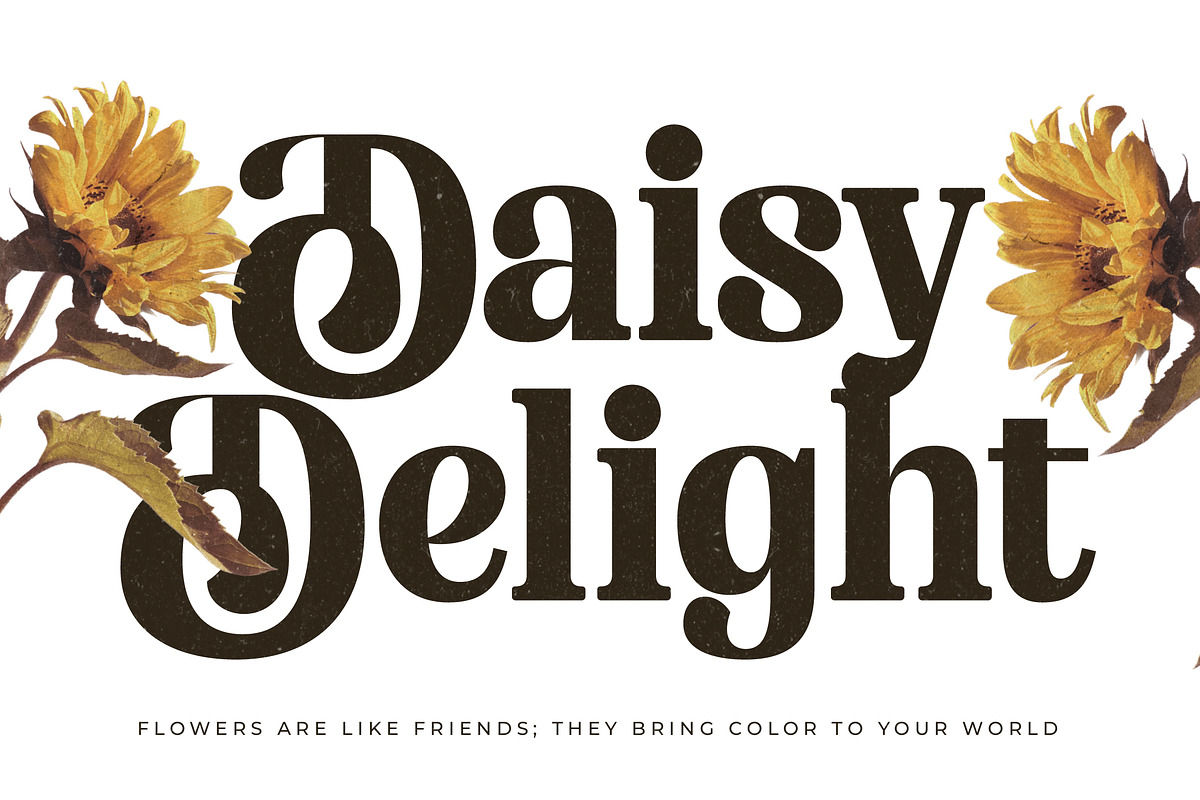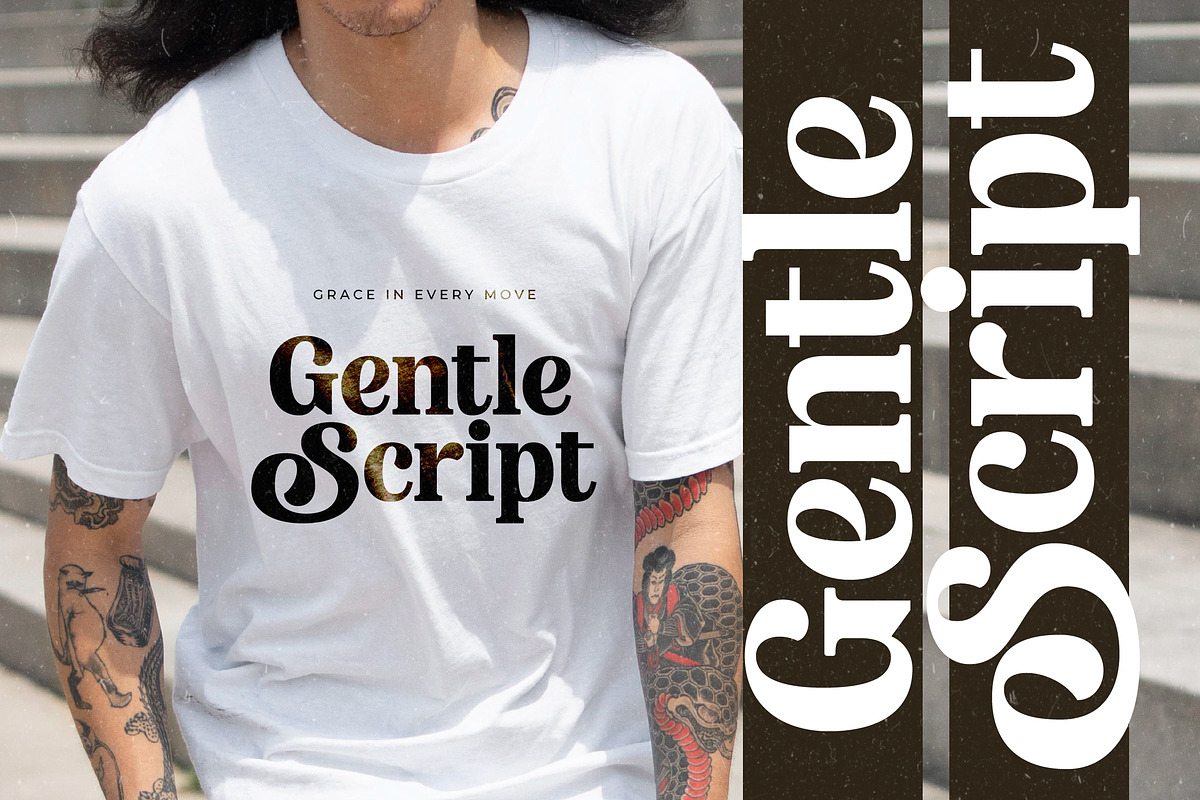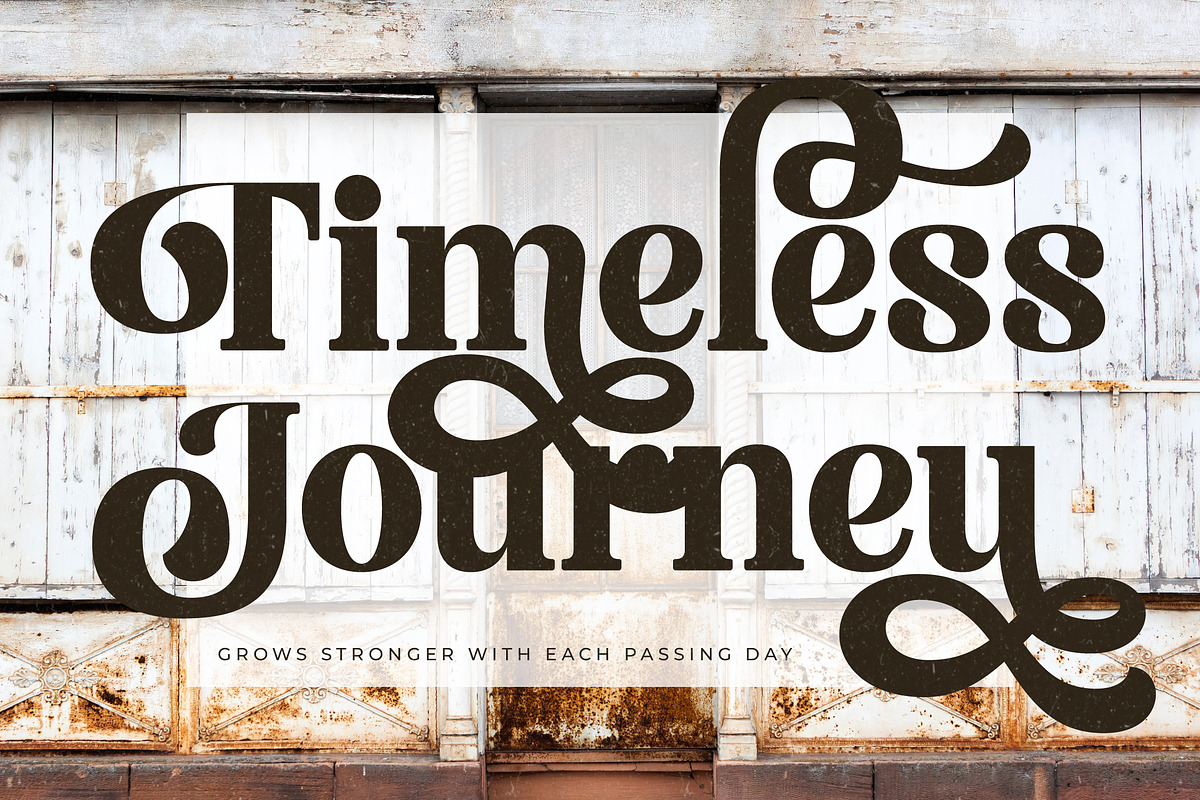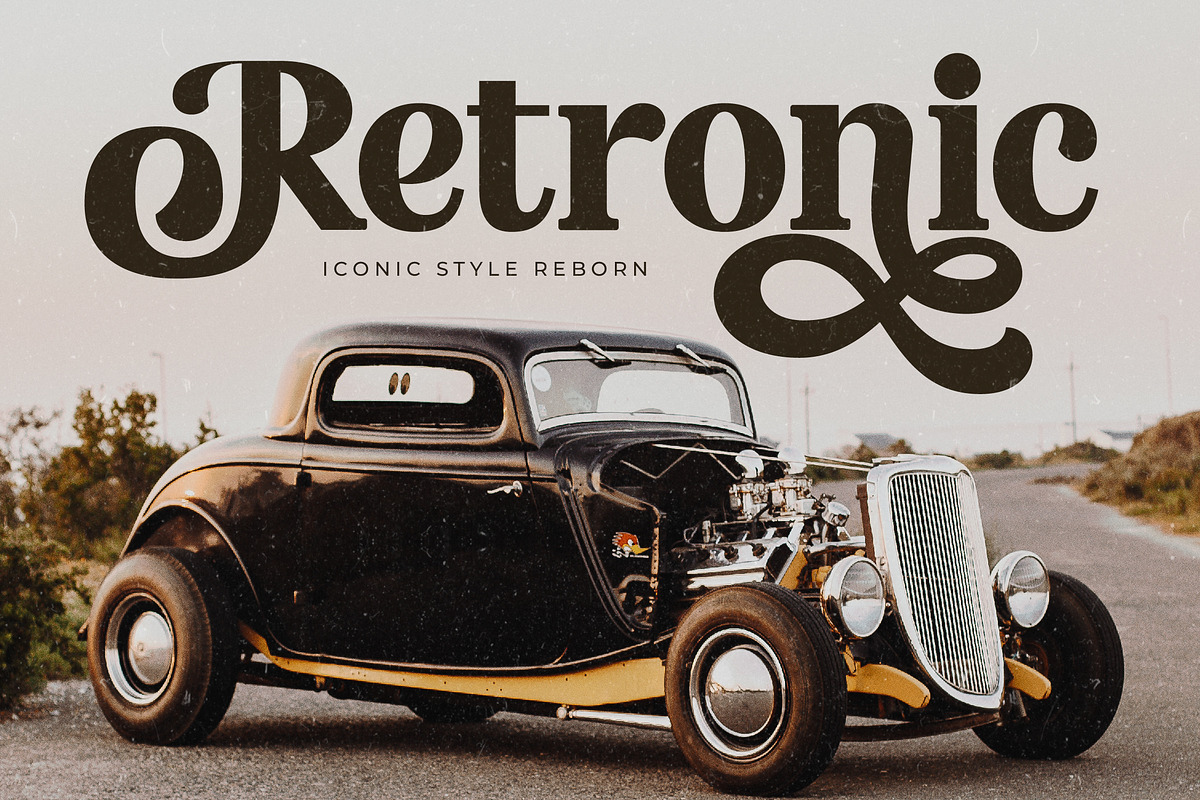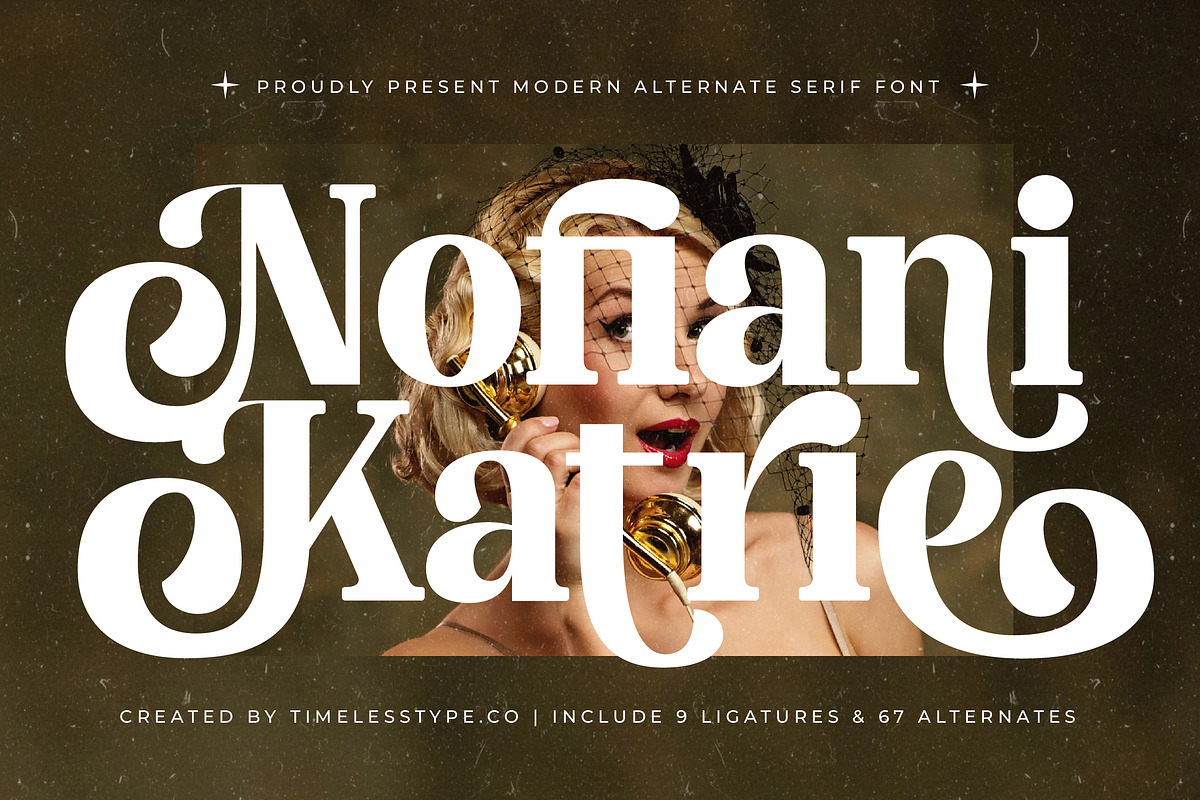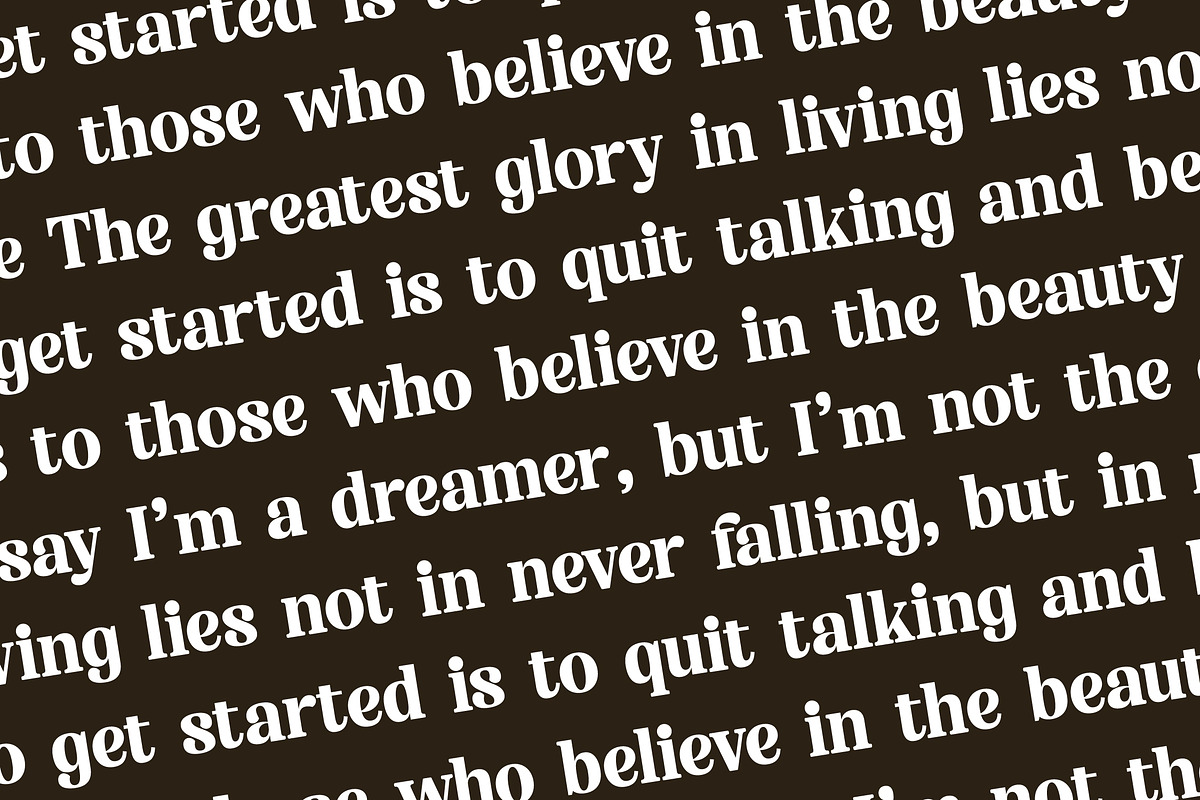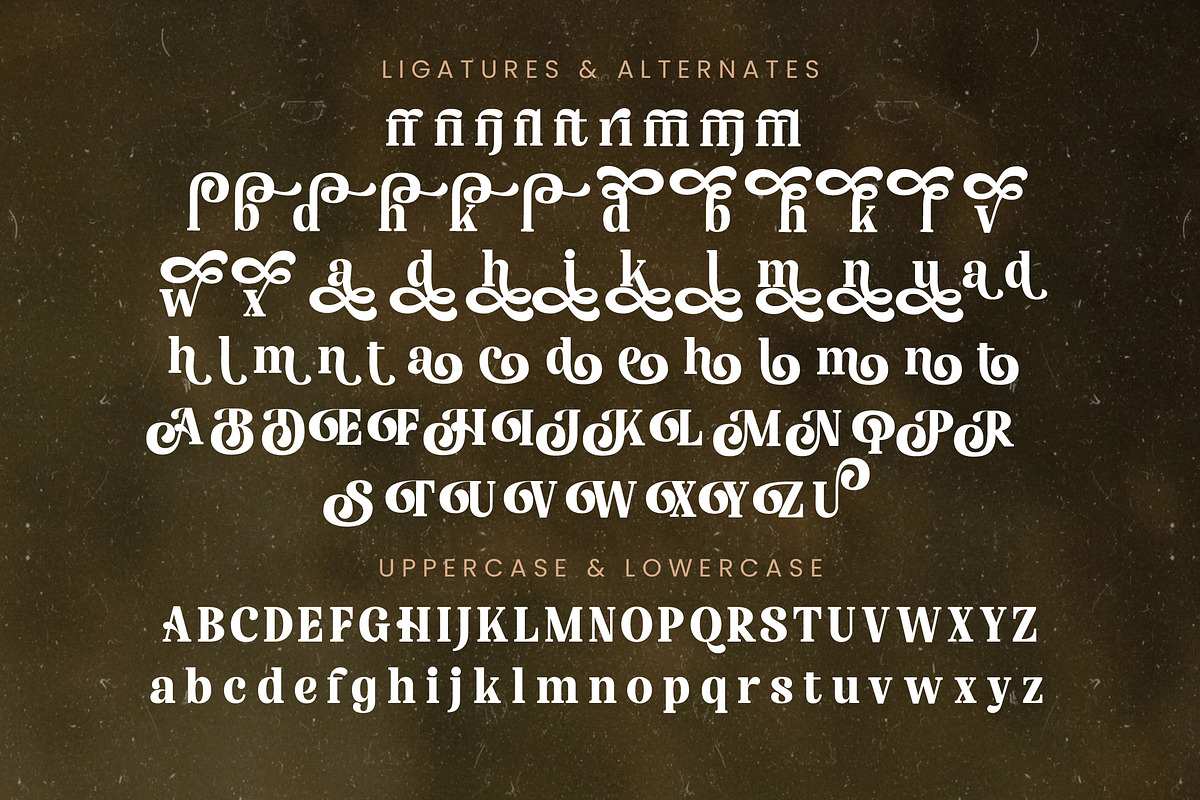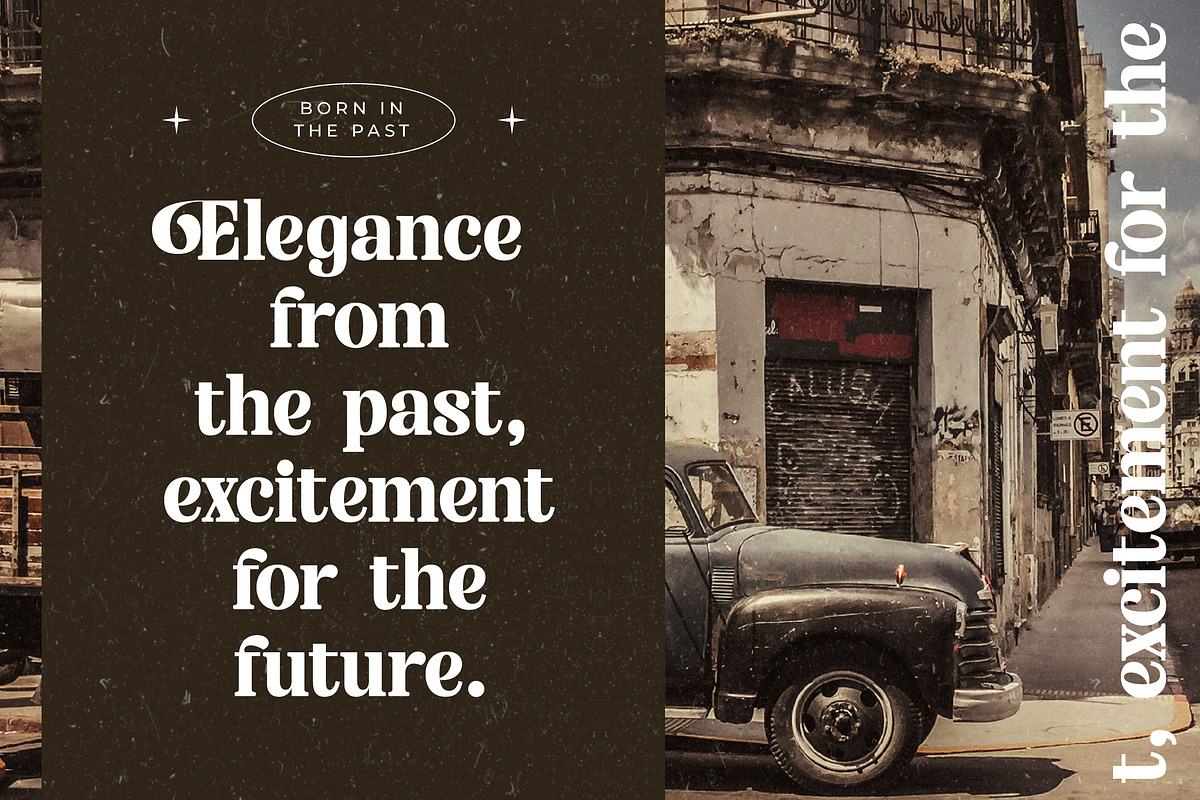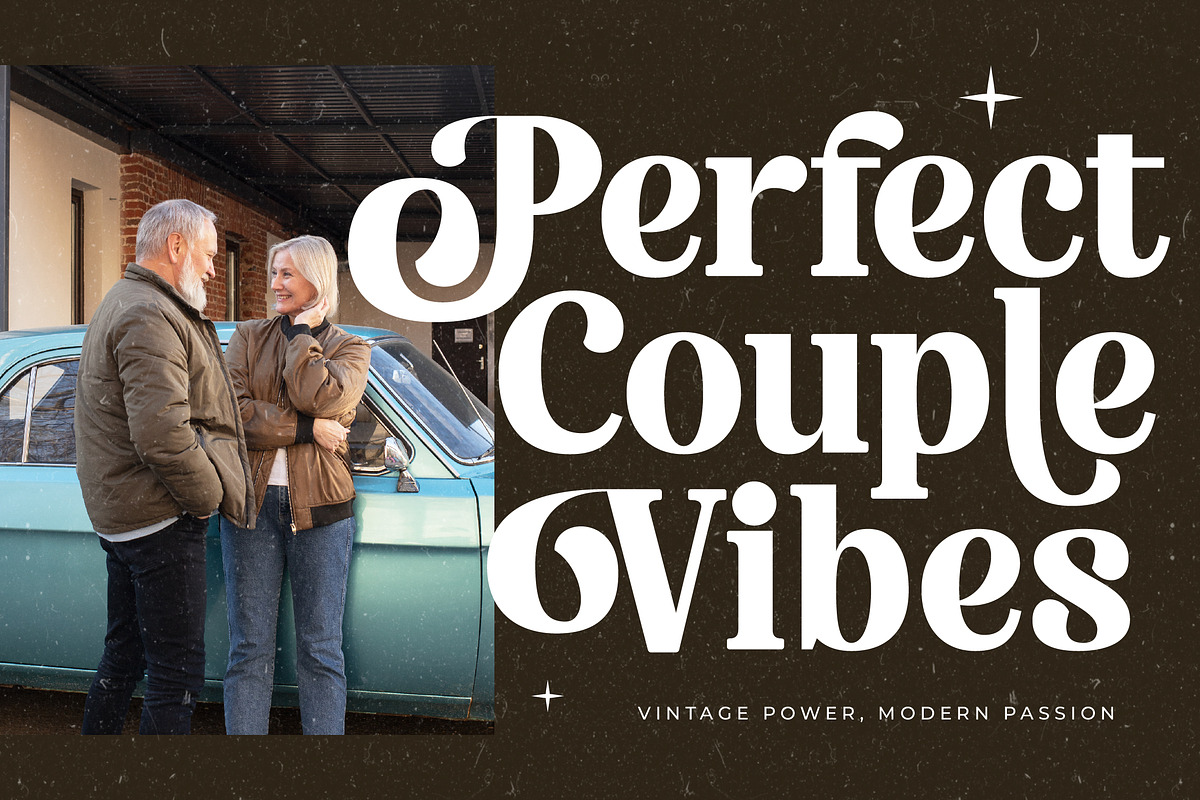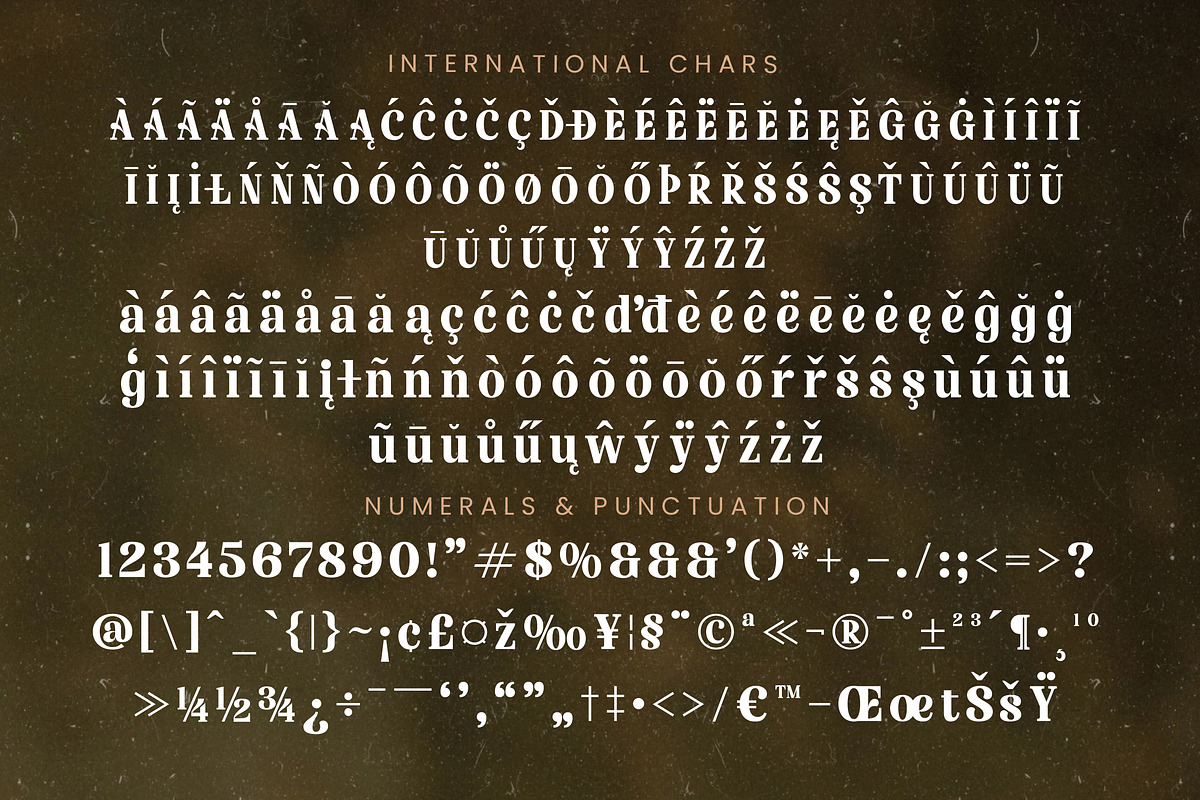
Nofiani Katrie Modern Serif Font
Step into a world of timeless elegance where every curve tells a story of sophistication. Nofiani Katrie is more than just a typeface; it is a visual invitation to a realm of grace and high-fashion allure.
Drawing inspiration from the golden age of cinema and the classic aesthetics of vintage luxury, this font captures the essence of a bygone era reimagined for today's creative landscape. It evokes the feeling of a sun-drenched European villa and the refined whispers of high-society soirées.
The font radiates a modern serif display presence that commands attention through its luxury typography and high-contrast serif strokes. This editorial font is designed to provide a lasting branding impact, blending sharp precision with fluid, organic motion.
Perfectly aligned with the current modern serif trend, this typeface addresses the growing demand for editorial display fonts that offer more than just legibility. It is at the forefront of character-driven typography, allowing brands to speak with a unique and memorable voice.
It is the ideal choice for creating a standout logo design or building a cohesive branding identity for high-end clients. Whether used in editorial layouts, luxury packaging, romantic wedding stationery, or bold fashion photography, it adds a touch of bespoke craftsmanship to every project.
This versatile package includes a wealth of ligatures and creative alternates that allow for endless customization, alongside expressive swashes that dance across the page. With full multilingual support and a wide range of international characters, it ensures your message resonates globally with premium flair.
- Ligature 9 Alternate 67 & Swashes